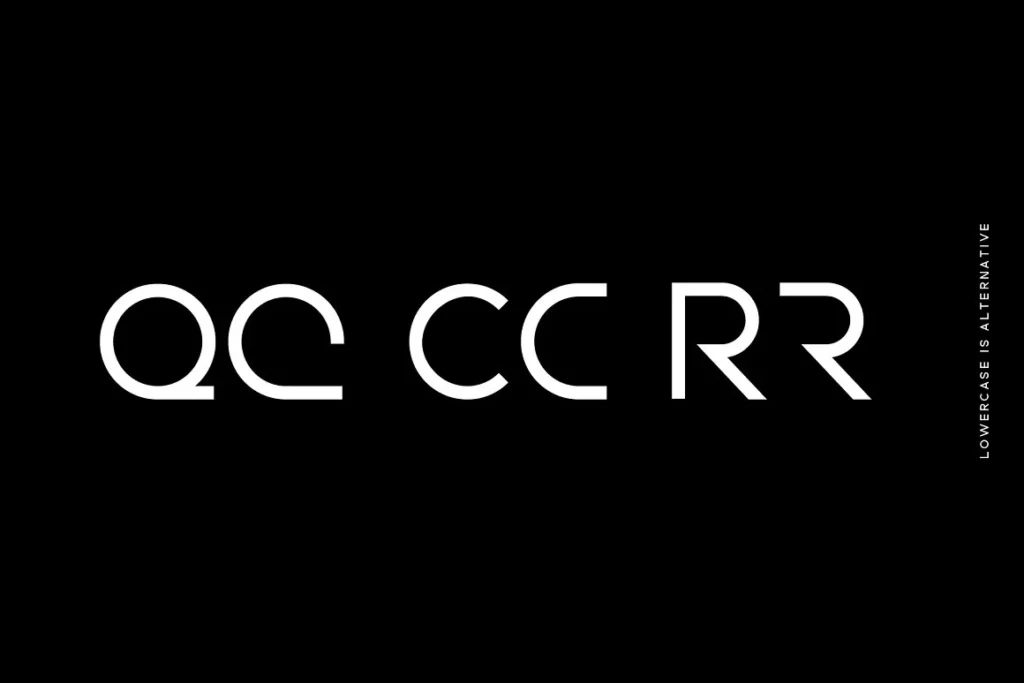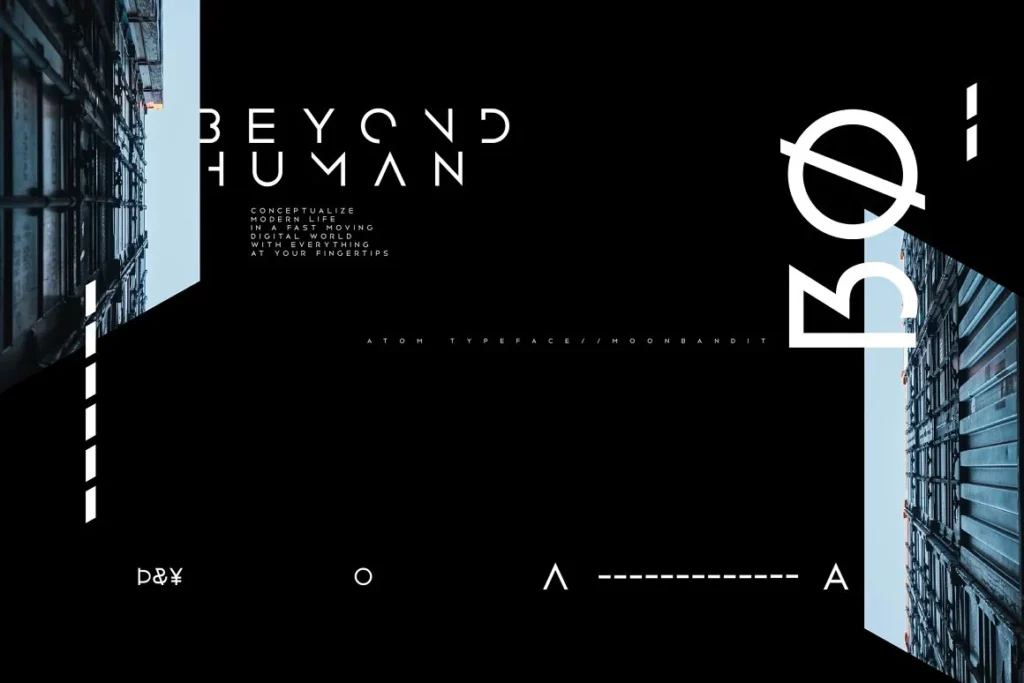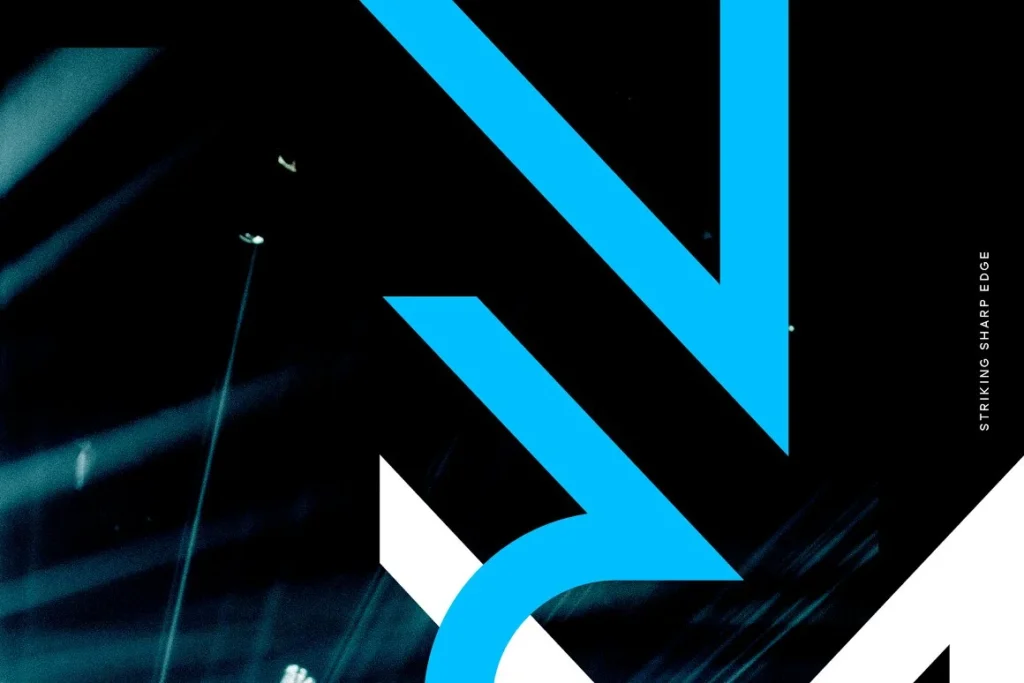
๐ฎโจ Welcome to the Future of Typography! In this mesmerizing Font we dive into the world of cutting-edge design with the stunning Atom Sharp edge Typeface Scifi Font.
Atom Sharp edge Typeface Scifi Font This futuristic typeface is not only sleek but also ear-catching, making it the perfect choice for your next sci-fi project!
Explore its unique characteristics and discover how it can elevate your designs to cosmic levels. Whether you’re a graphic designer or a DIY enthusiast,